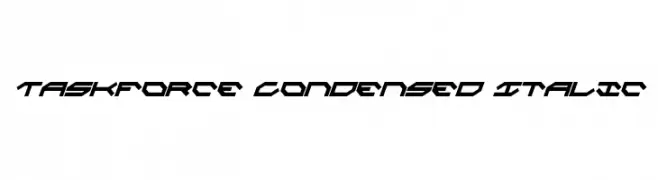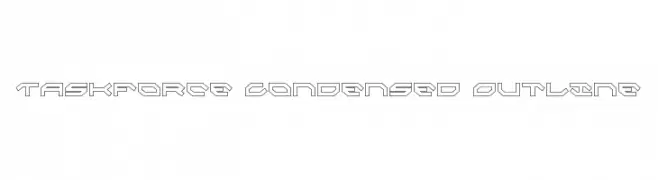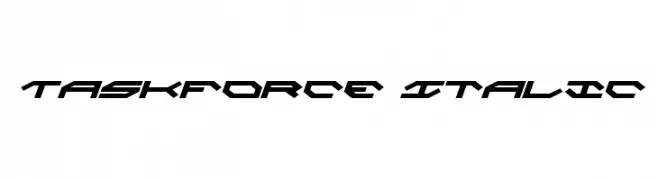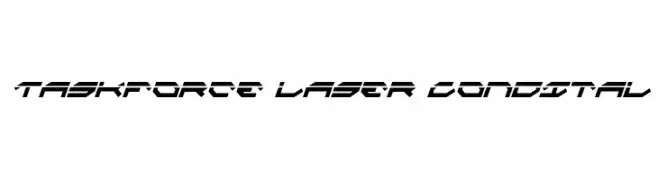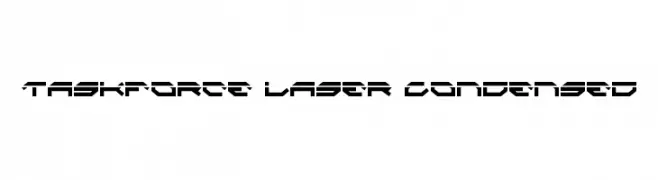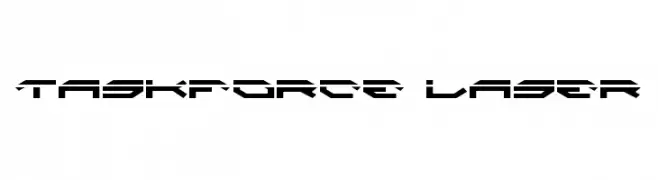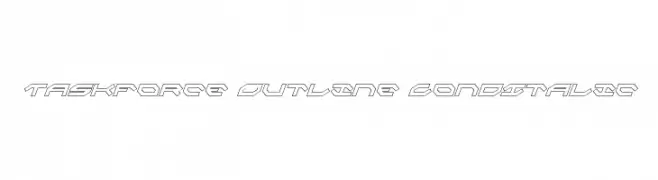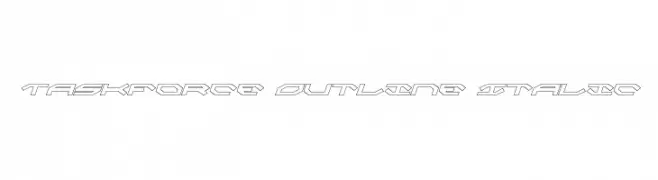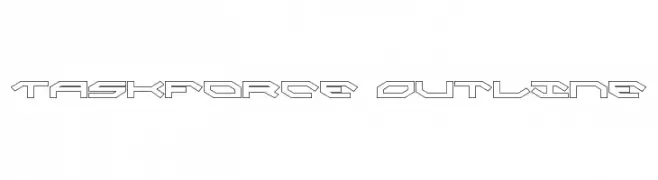
A futuristic, angular, and italicized font with a condensed style.
A futuristic, geometric outline font with a condensed form and sharp angles.
A bold, italicized font with a futuristic and angular design.
A futuristic, angular font with sharp edges and geometric shapes.
A futuristic, angular font with a condensed and geometric style.
A bold, futuristic font with sharp angles and an italicized slant.
A futuristic, angular italic font with sharp edges and a dynamic style.
A futuristic, geometric outline font with sharp, angular letterforms.
A futuristic, geometric outline font with italicized characters and a tech-inspired aesthetic.
Futuristic, angular outline font with italicized characters.